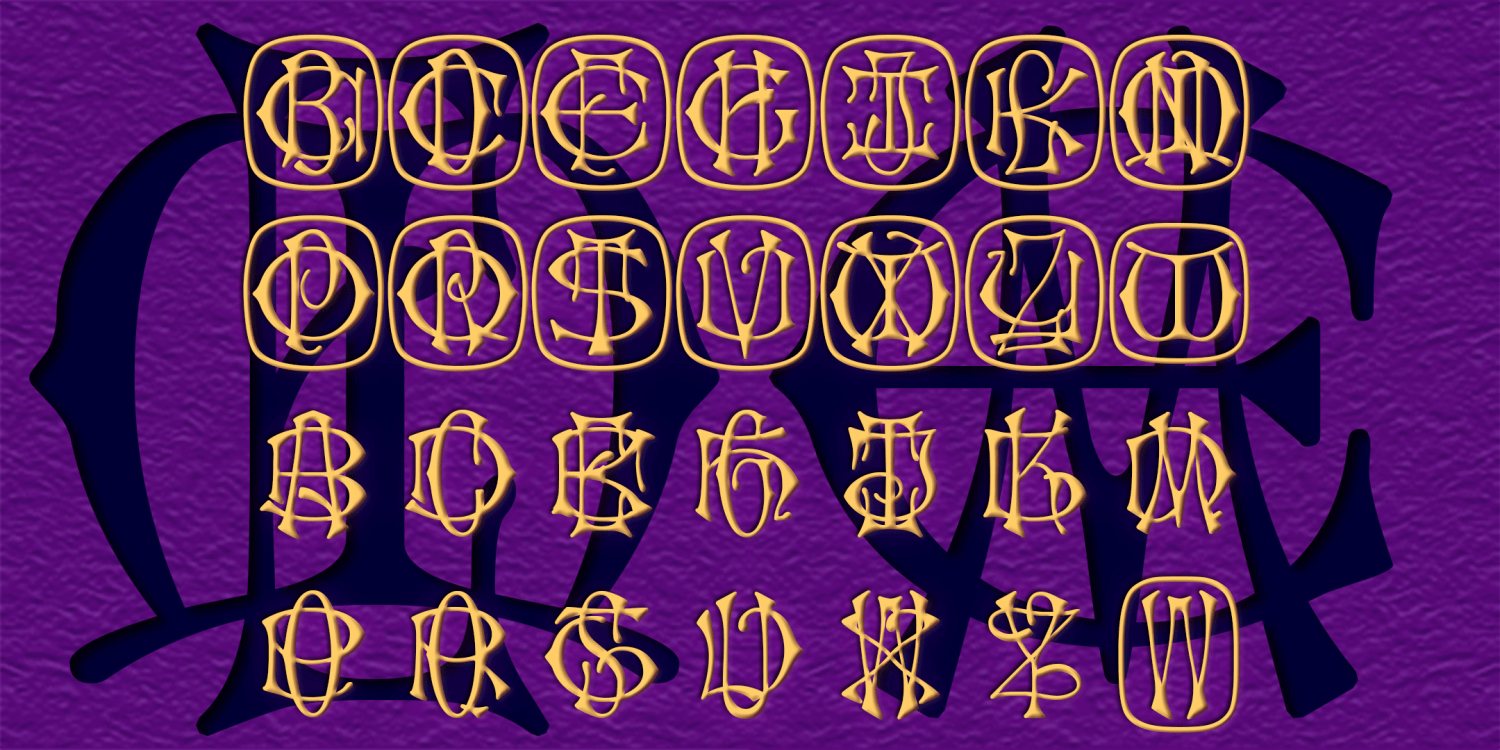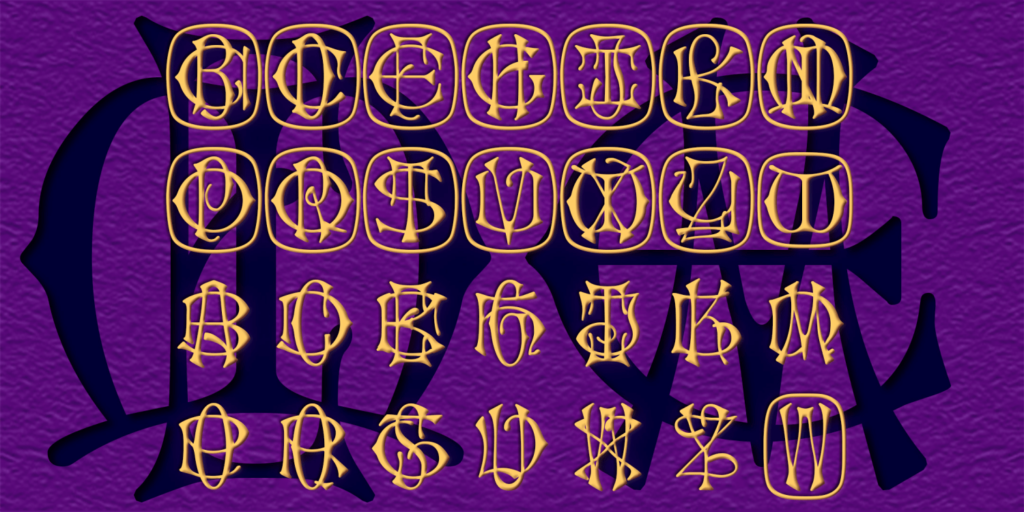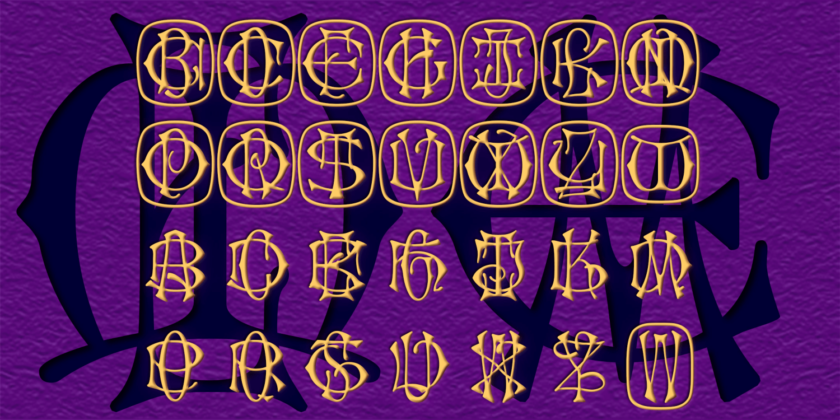
Entwined Monograms
Entwined Monograms allows you to easily make 2-letter monograms this unique vintage style. Each monogram is composed of a wide letter and a tall letter. The wide letters often take the lowercase form and the tall letters, the uppercase, helping to avoid…